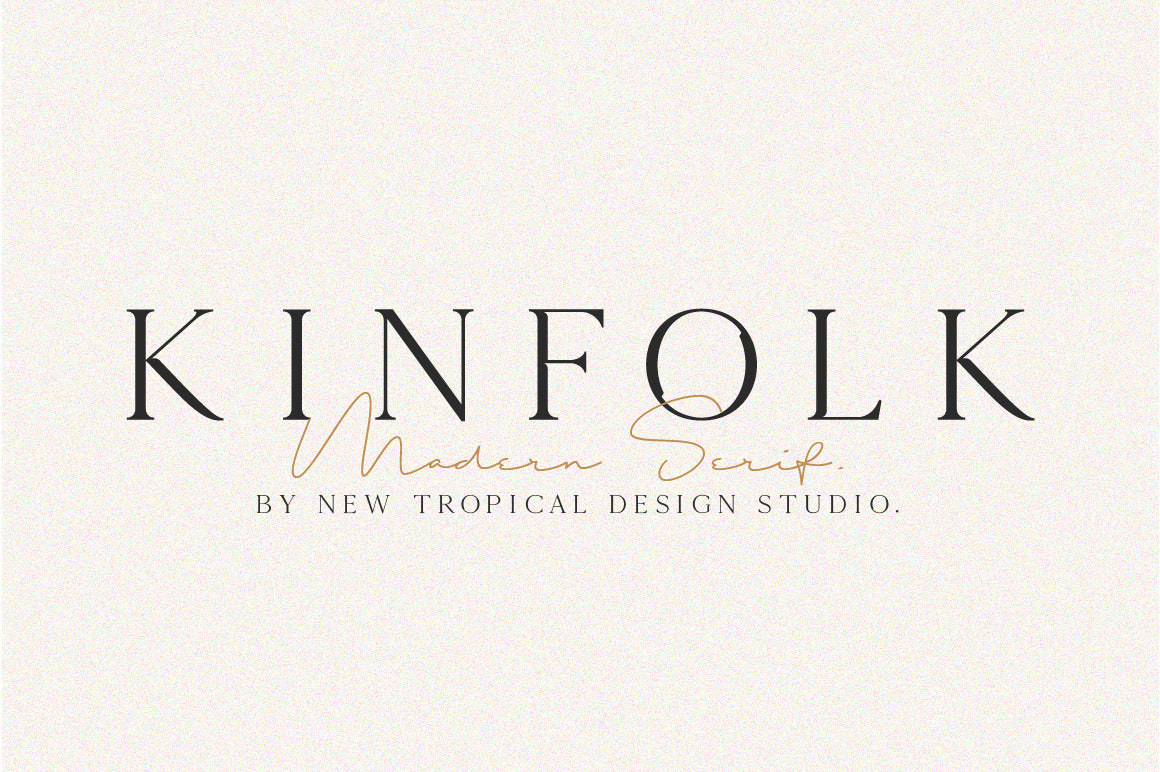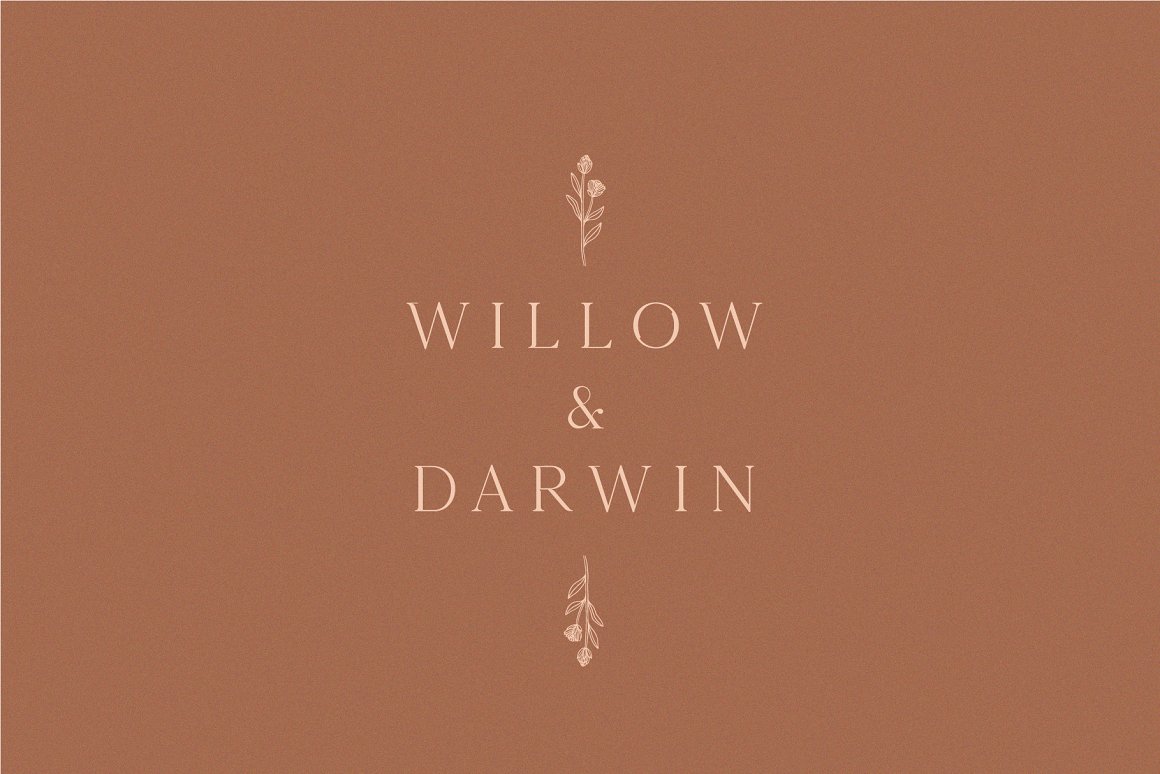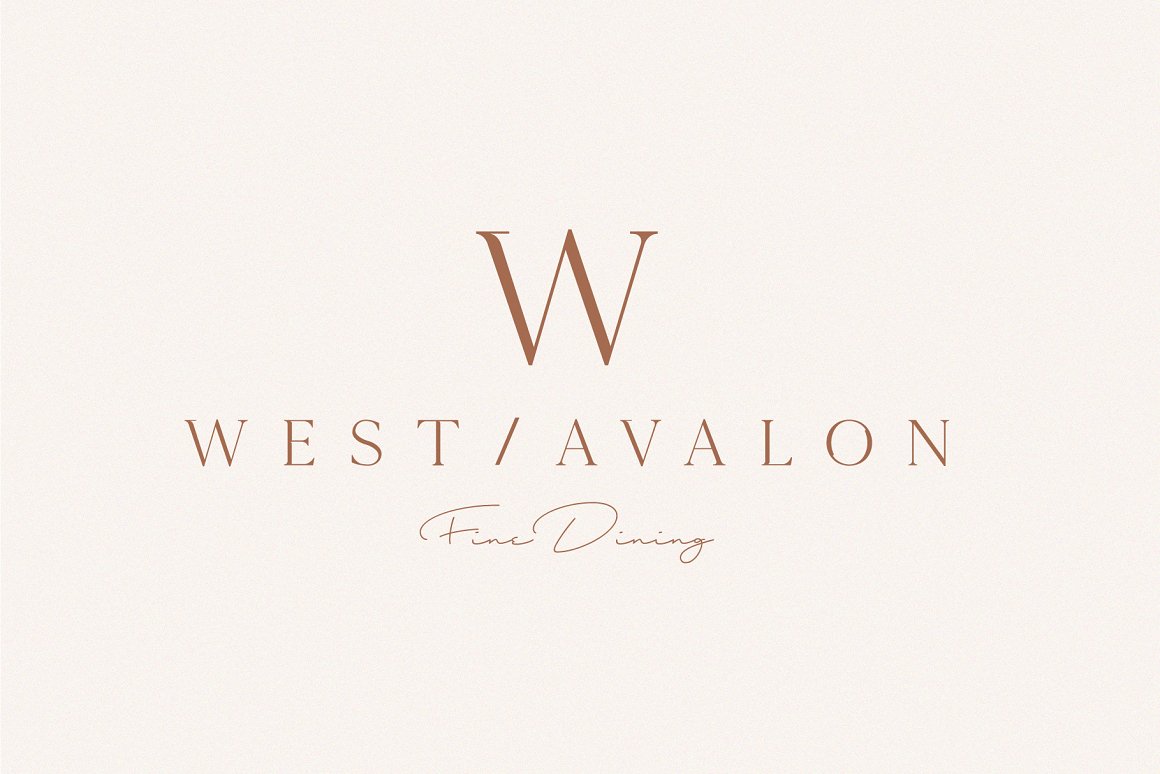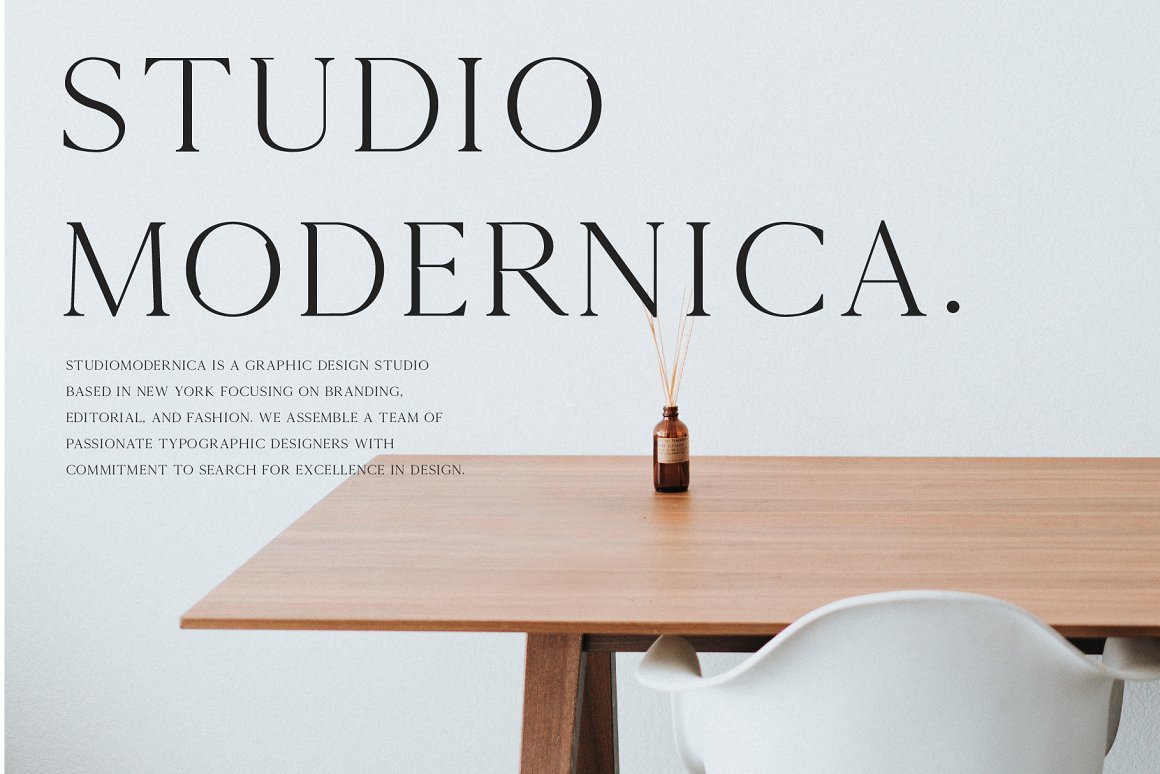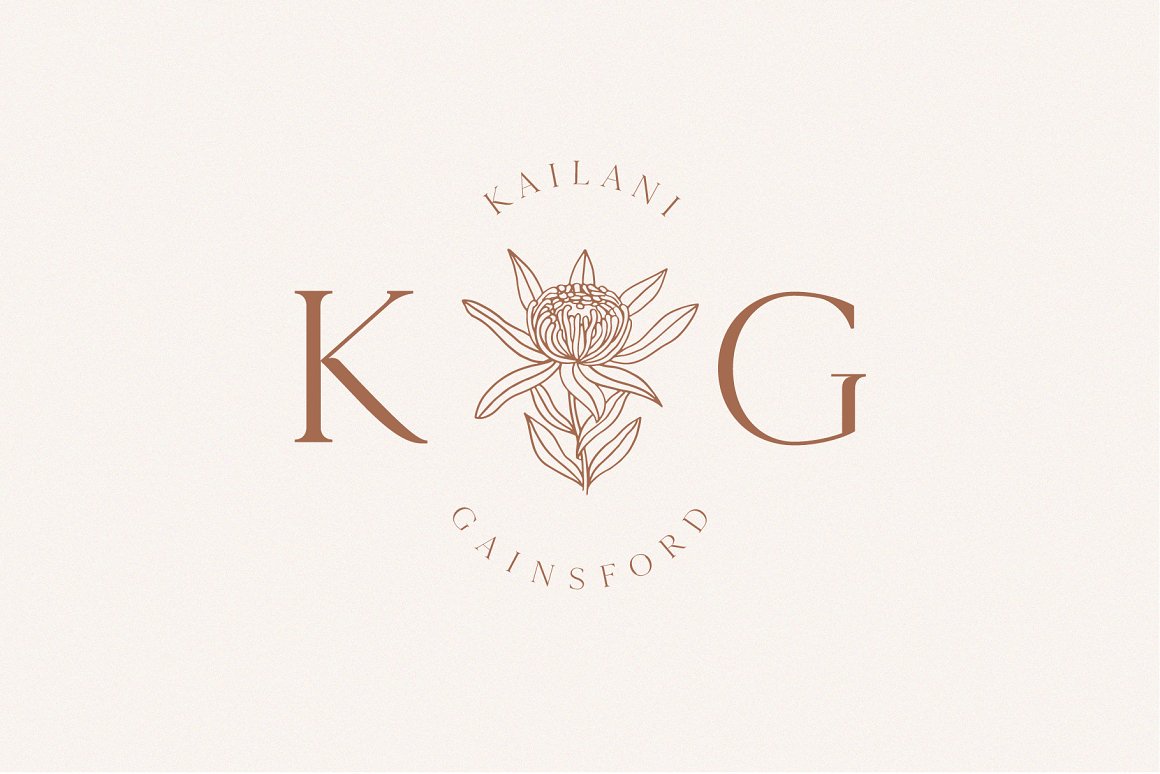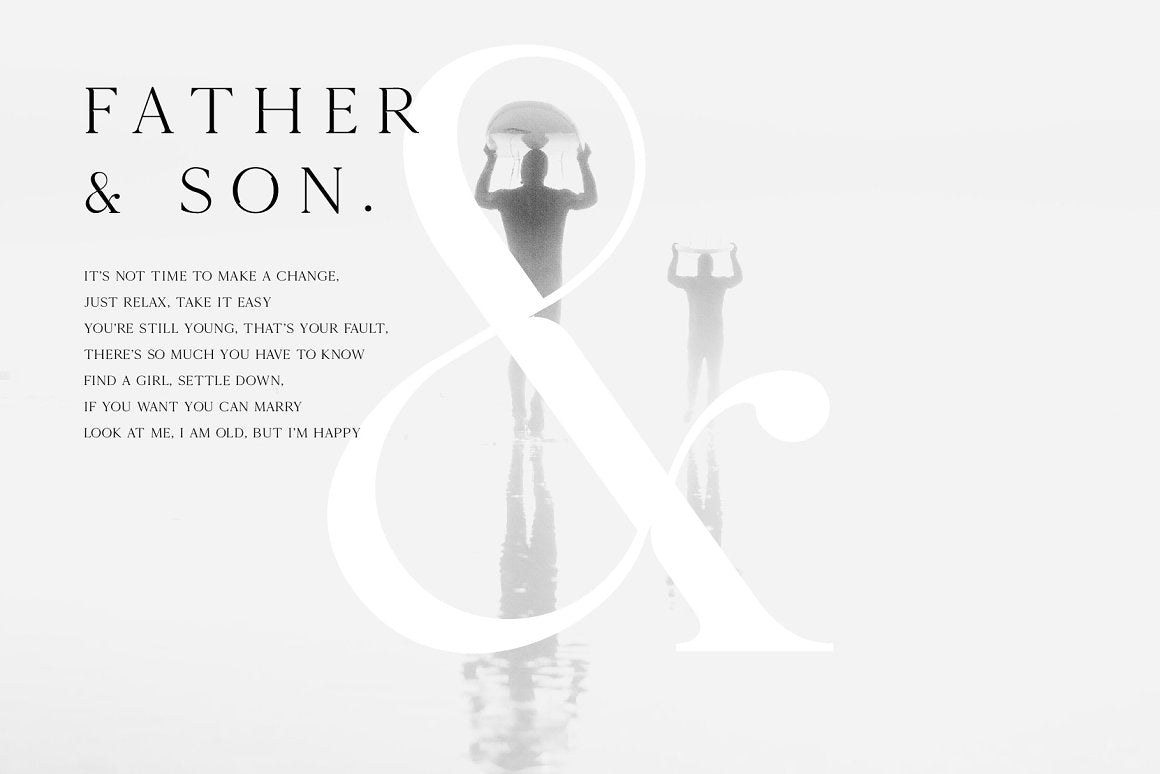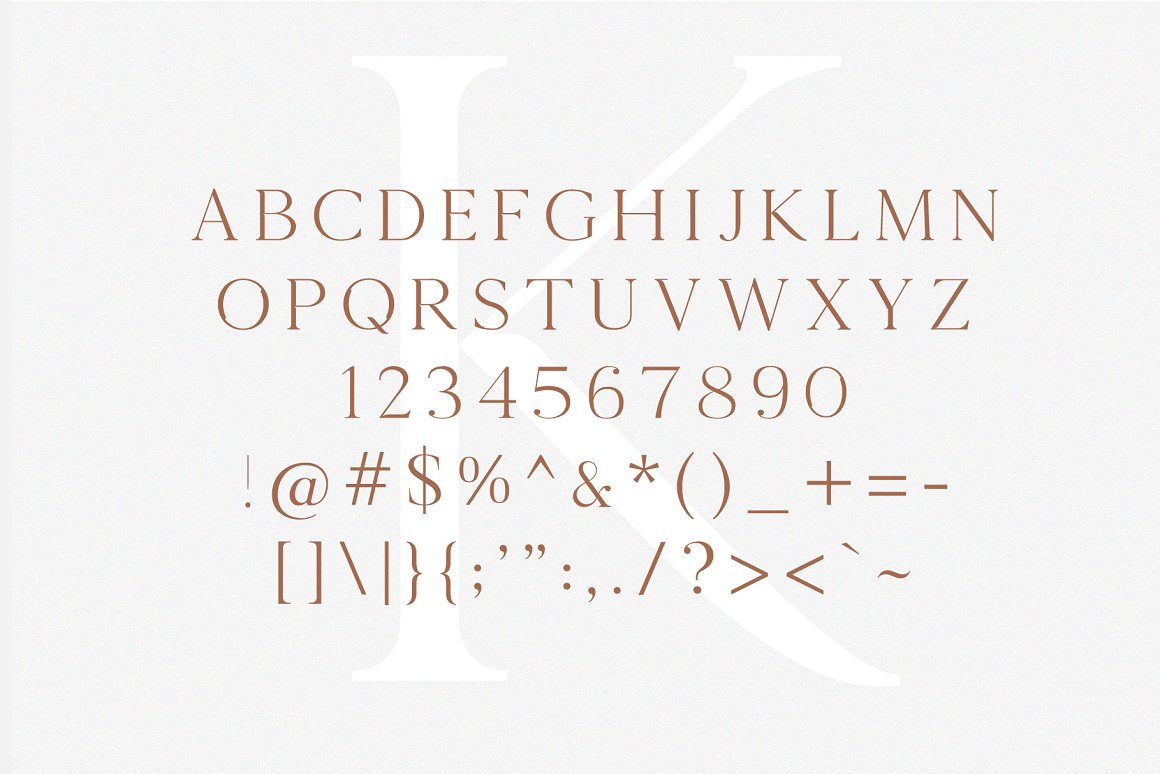
Kinfolk
Kinfolk is a classic style serif typeface that has been modernised with its unique curves and cut-ins making it one of the most memorable caps fonts on the market. This versatile font can be used for wordmark logos, mastheads, pull quotes & monograms showing both feminine and masculine qualities.